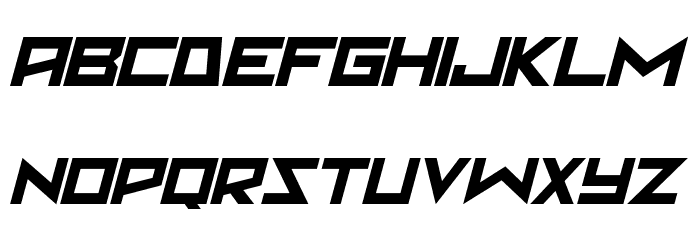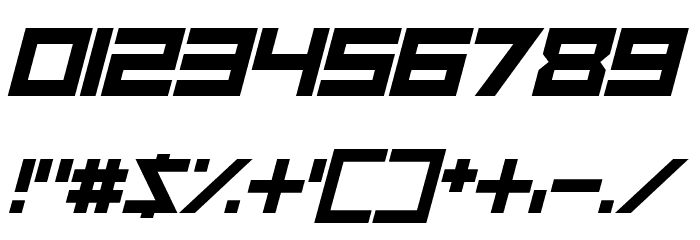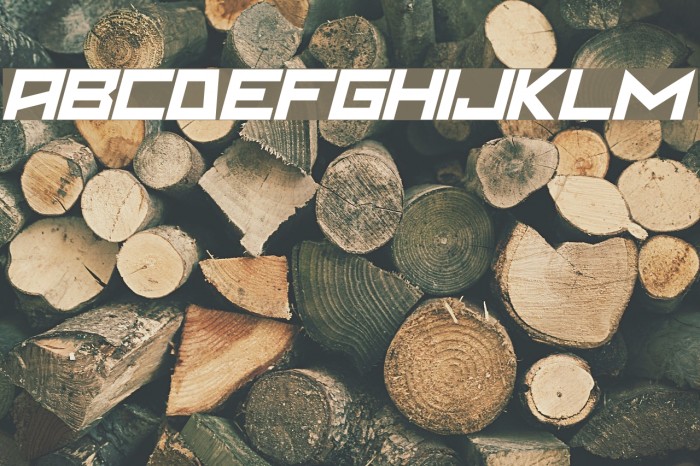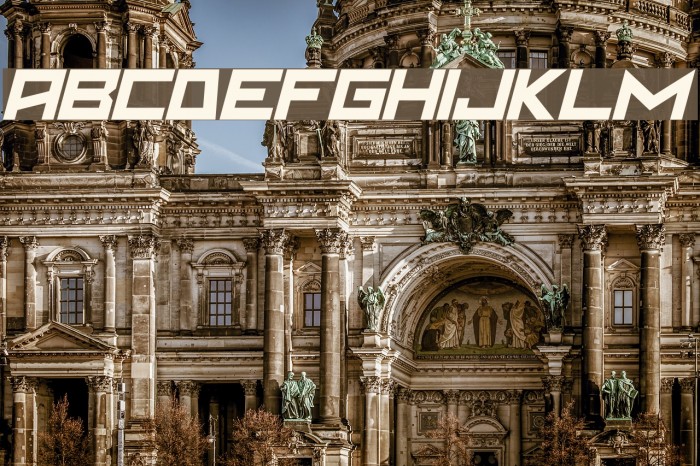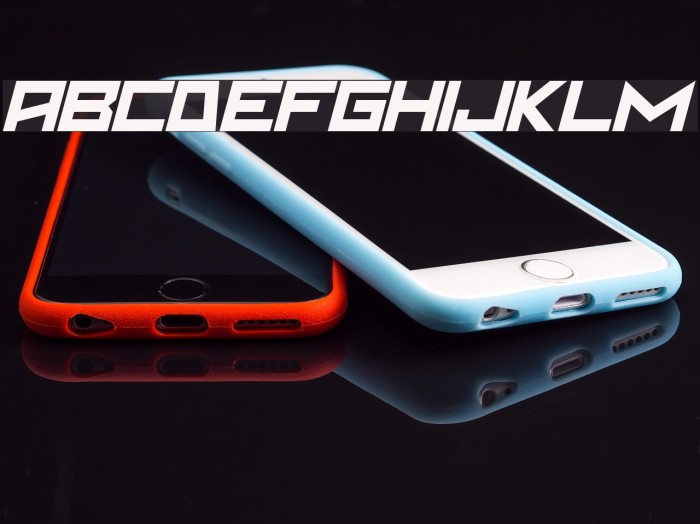
Martian Sunrise Italic Font
This font features a futuristic and angular design, characterized by sharp edges and a slanted, italicized form. The uppercase and lowercase letters share a consistent geometric style, with a bold presence that makes each character stand out. The numbers and special characters maintain this angular theme, providing a cohesive look across all elements. The font's unique style is reminiscent of sci-fi aesthetics, making it suitable for projects that require a modern and edgy appearance. Its bold and italic nature adds to its dynamic and energetic feel, making it ideal for attention-grabbing designs.
A bold, italicized font with a futuristic, angular design.
- Proposed Projects: Ideal for sci-fi themed designs, video game titles, movie posters, and tech-related branding.